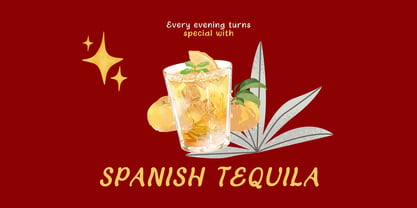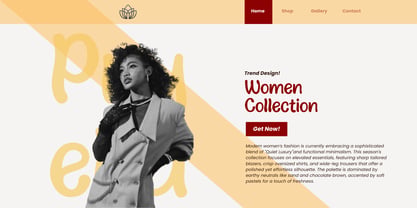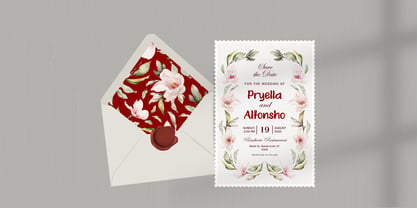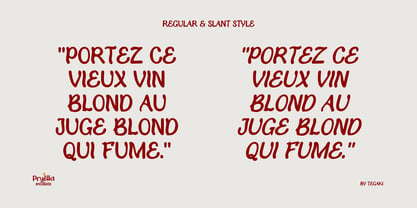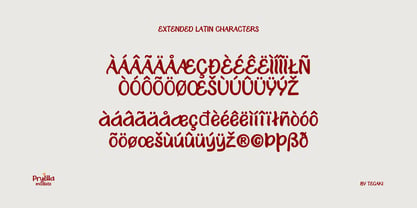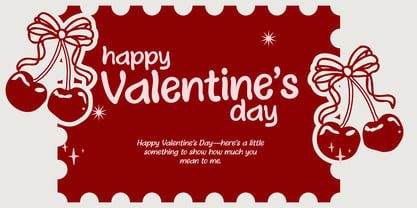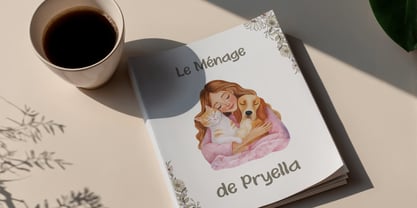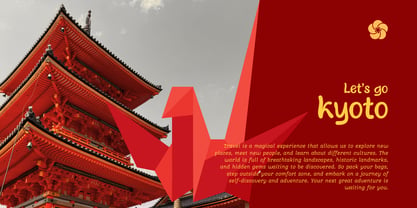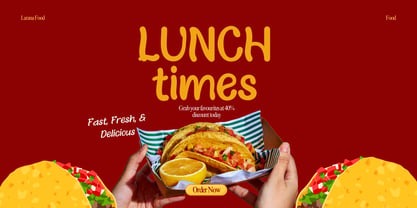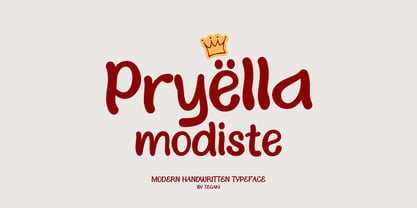
Pryella Modiste
by Tegaki
The Pryella Modiste Font Family was designed by Rudi Suhairi and published by Tegaki. Pryella Modiste contains 2 styles and family package options. More about this family
Pryella Modiste is a charming modern handwritten typeface designed to bring personality and elegance into your work. Inspired by boutique fashion and handcrafted lettering, this font delivers smooth, playful curves that feel warm, stylish, and effortlessly modern. Pryella Modiste includes two versatile styles Regular and Slant that allowing you to mix, match, and create expressive layouts with ease. Whether you’re designing logos, branding, packaging, social media graphics, invitations, or feminine projects, this typeface adds a polished handcrafted touch that instantly elevates your design. Stylish, friendly, and highly usable, Pryella Modiste is made to stand out while remaining beautifully readable.
Pryella Modiste